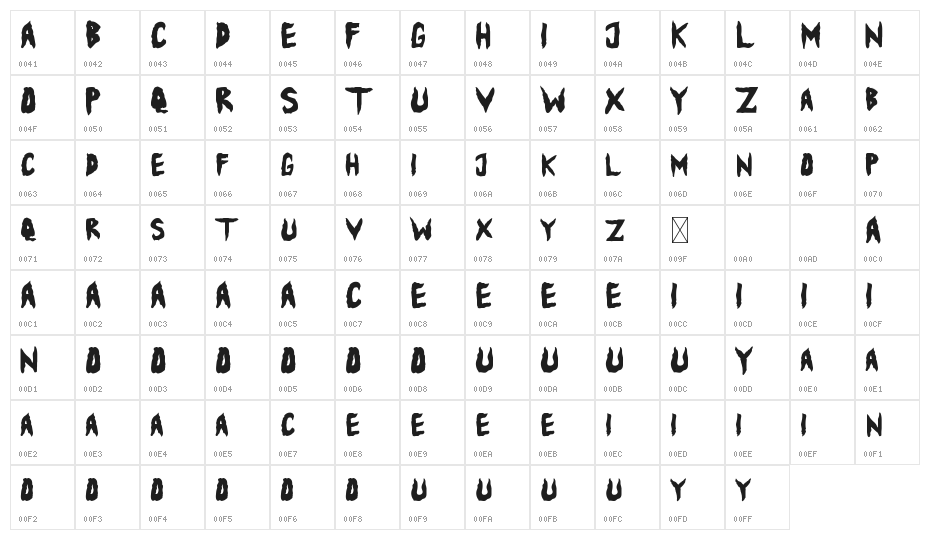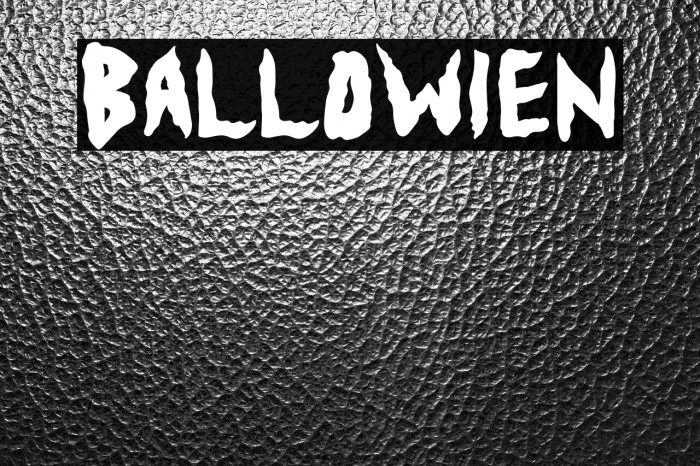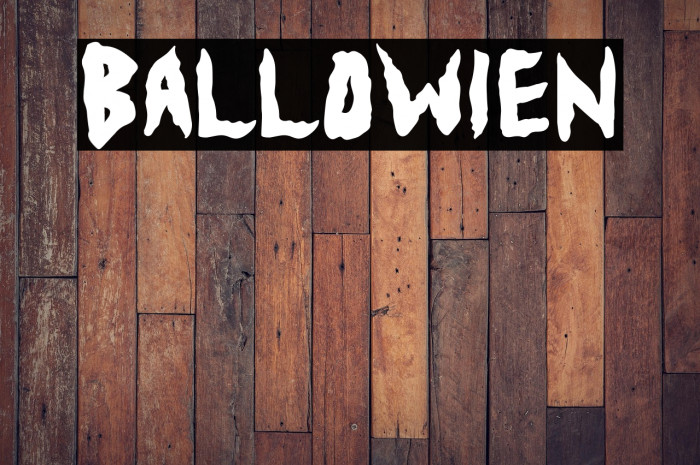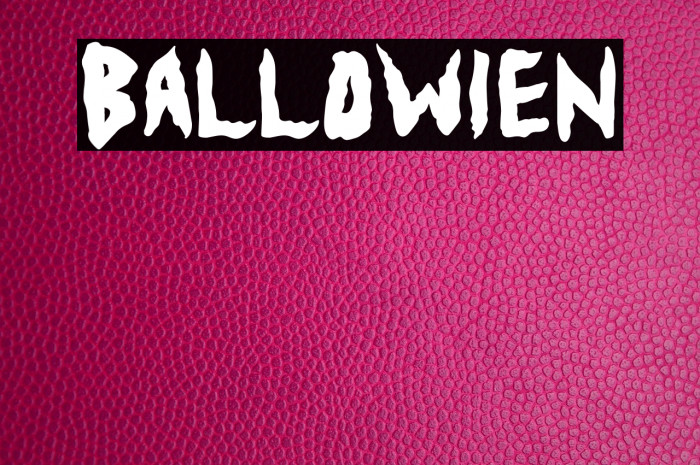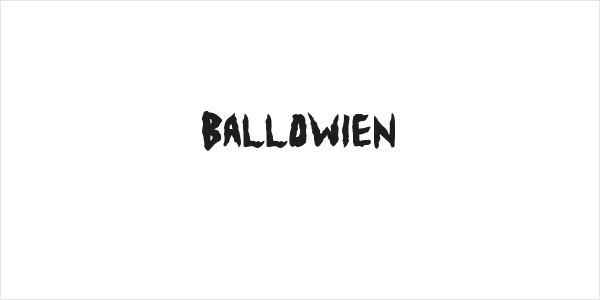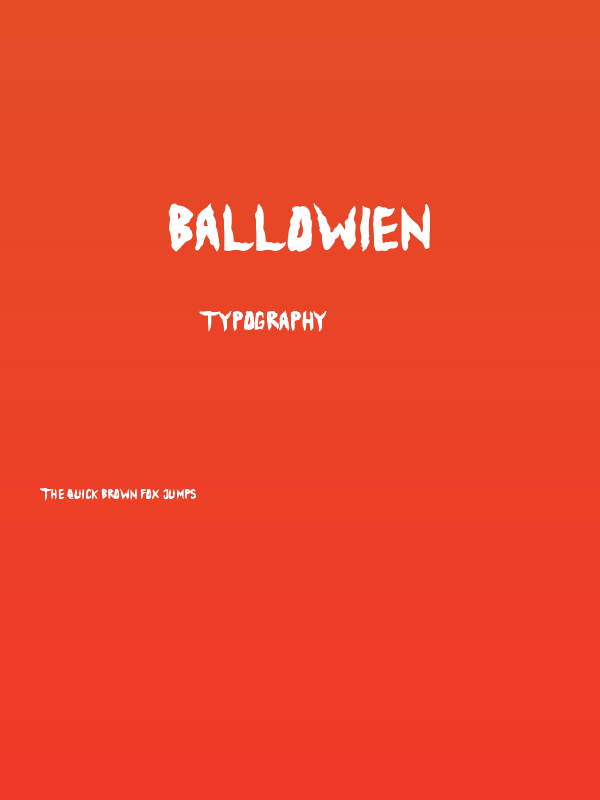
Ballowien Font
Ballowien Description
This font features a bold, jagged style reminiscent of hand-drawn brush strokes, giving it a raw and energetic appearance. The characters are unevenly shaped, with varying thickness in the strokes, creating a sense of movement and dynamism. The irregular edges and rough texture add a touch of unpredictability, making it ideal for designs that aim to convey a sense of spontaneity or edginess. The uppercase letters maintain a consistent height, while the overall design retains a cohesive yet chaotic aesthetic.
| Proposed Projects | Ideal for Halloween-themed designs, edgy posters, album covers, and creative branding projects. |